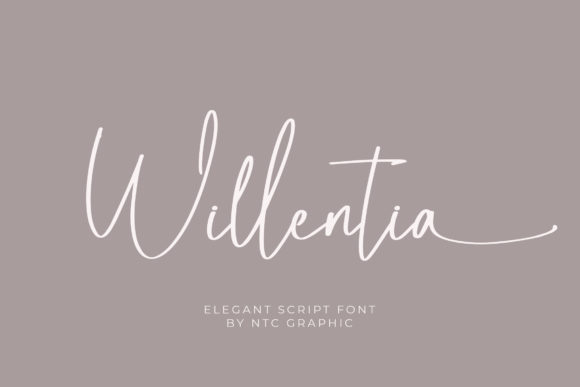
**Introducing Willentia: The Enchanting Script Font for Timeless Creations**
Welcome to the world of Willentia, a captivating script font that whispers elegance with every stroke. Its ethereal grace and delicate charm will transport you to a realm of creativity, where your designs take flight and your imagination knows no bounds.
Willentia is the brainchild of dwikrisdiantoro9, a visionary artist who poured his passion into crafting this extraordinary font. Each character dances across the page with effortless beauty, exuding a timeless allure that will leave an unforgettable impression.
As you delve into the enchanting world of Willentia, you'll discover a treasure trove of possibilities. Whether you're a seasoned designer or just starting your creative journey, this versatile font will become your trusted companion, guiding you towards masterpieces that captivate and inspire.
**Unleash Your Creativity with Willentia**
With Willentia's graceful curves and flowing lines, you can weave a tapestry of words that will captivate your audience. This exquisite font is the perfect choice for wedding invitations that exude romance and elegance. Its ethereal nature will create an ambiance of love and enchantment, ensuring that your special day is etched in the hearts of your guests forever.
But Willentia's versatility extends far beyond the realm of weddings. Its charming personality lends itself to a myriad of creative endeavors. Craft beautiful stationary art that will make your letters stand out from the crowd. Design eye-catching social media posts that will engage your followers and leave them yearning for more. The possibilities are endless, limited only by your imagination.
**Embrace the Elegance of Willentia**
Willentia is not just a font; it's an invitation to embark on a journey of artistic expression. Its thin lettered design adds a touch of sophistication to every creation, while its graceful script evokes a sense of timeless beauty.
But what truly sets Willentia apart is its PUA encoding. This innovative feature allows you to access all glyphs and swashes with ease, empowering you to unleash your creativity and add an extra touch of magic to your designs.
**Experience the Willentia Difference**
If you're searching for a script font that combines elegance, versatility, and endless possibilities, then your search ends with Willentia. This enchanting font will transform your designs, captivating your audience and leaving a lasting impression.